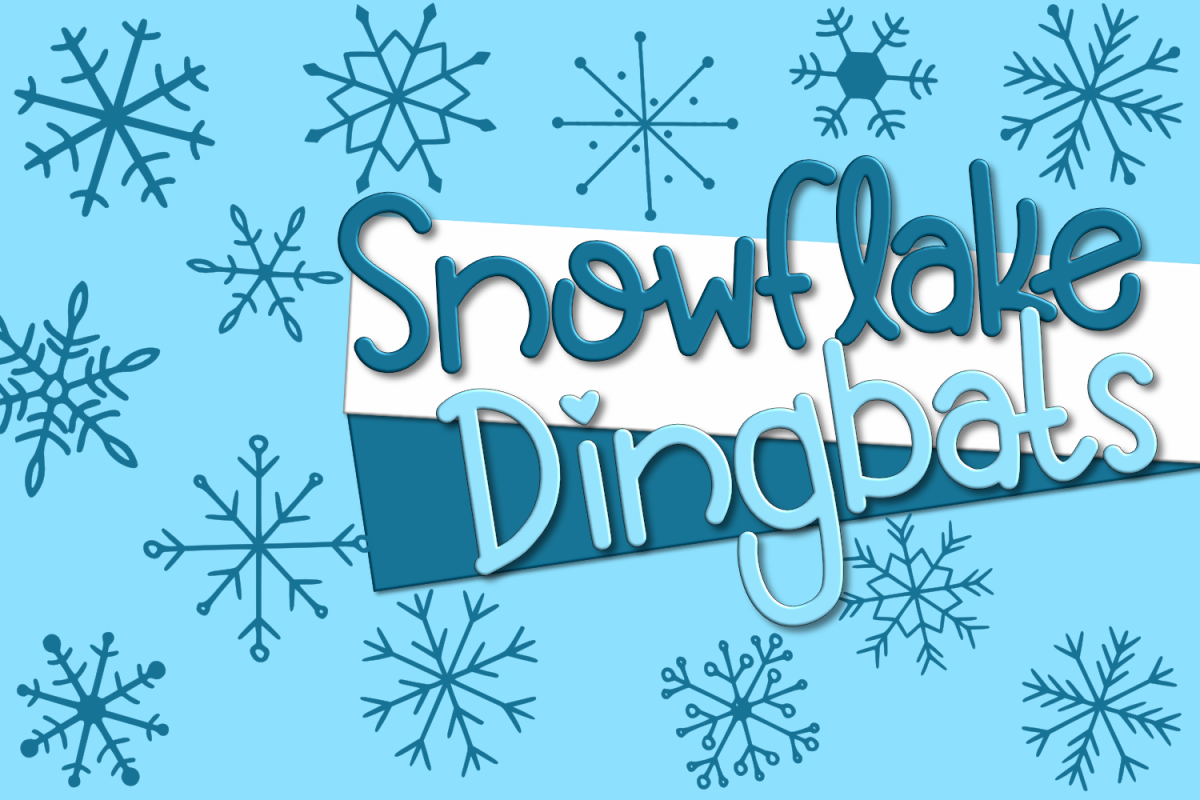
Snowflake Dingbats | A Font with Snowflake and Star Dingbats
Introducing Snowflake Dingbats also known as There’s Snow Place Like Home!
A font with many different snowflakes and stars!